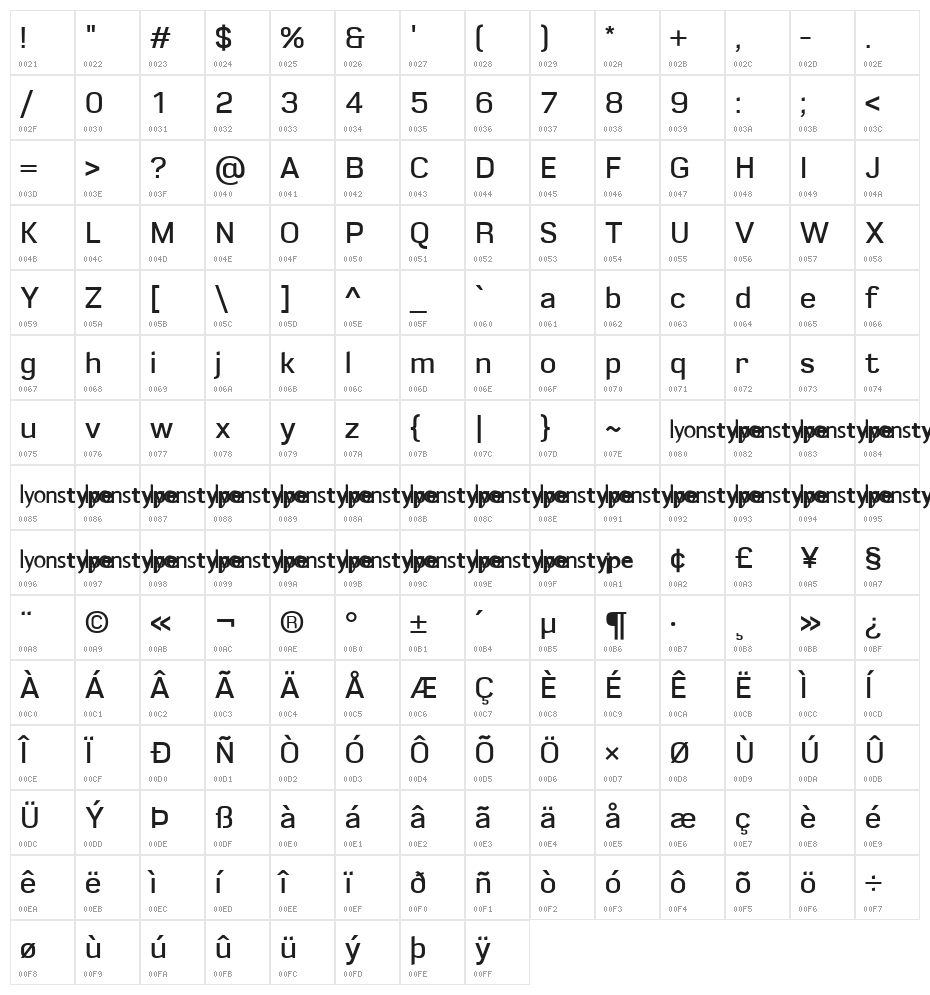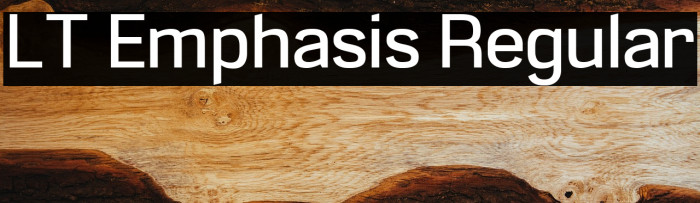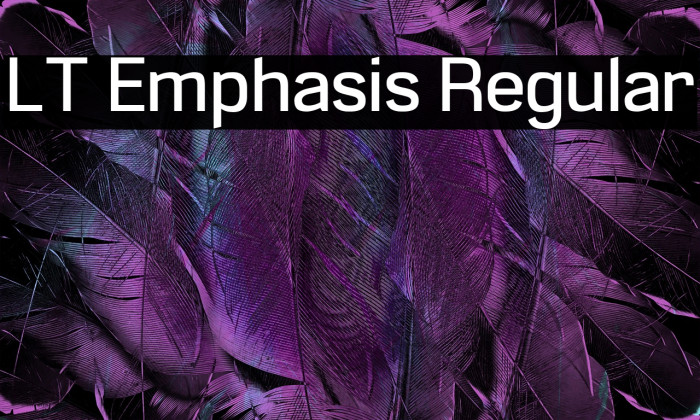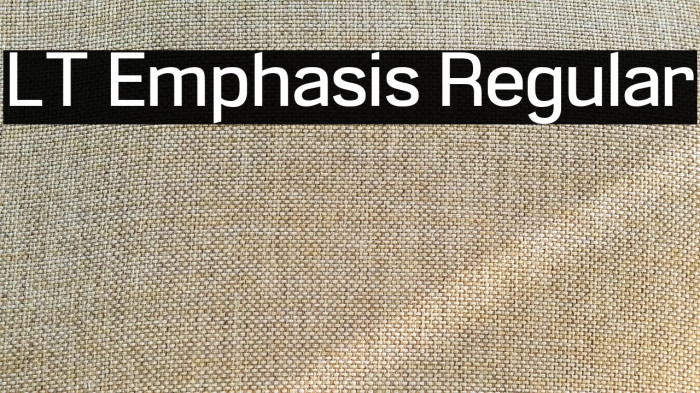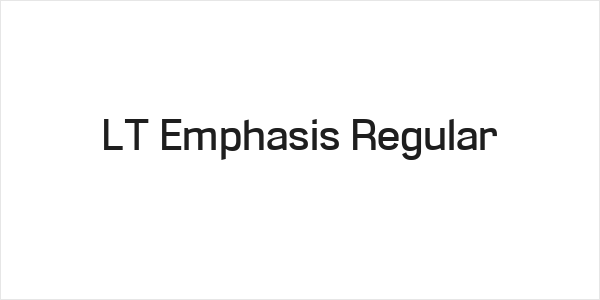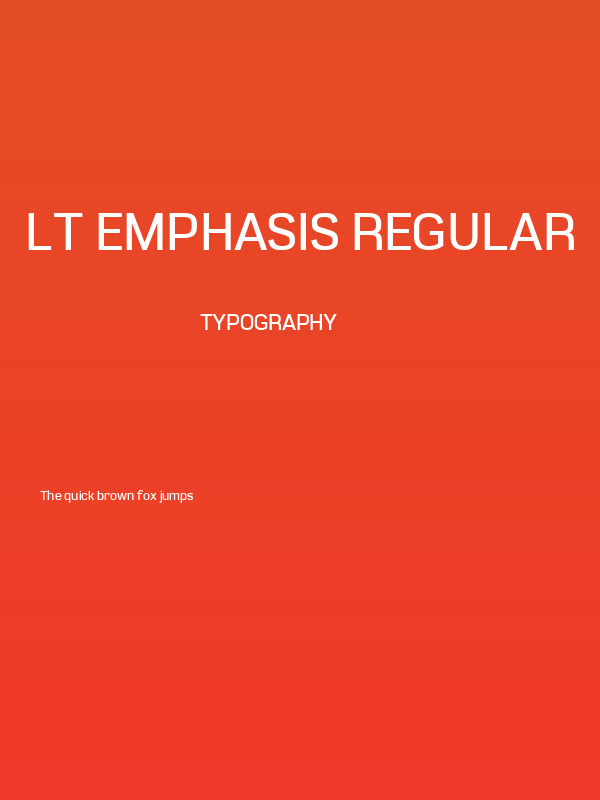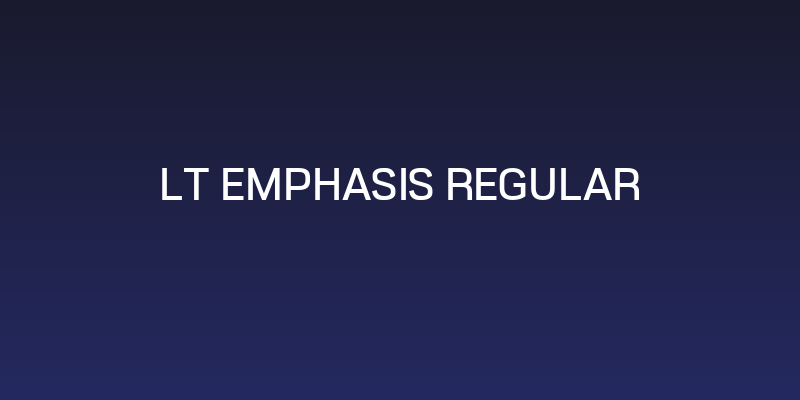
LT Emphasis Regular Font
LT Emphasis Regular Description
This typeface features a clean and modern sans-serif design, characterized by its straightforward and geometric letterforms. The uniform stroke width and minimalistic style contribute to its legibility and versatility, making it suitable for a wide range of applications. The uppercase and lowercase letters maintain a consistent height and spacing, providing a balanced and harmonious appearance. The numerals are clear and distinct, ensuring readability in various contexts. Special characters are well-integrated, enhancing the font's functionality for diverse uses.
| Use Case | Headlines, Body text, Logos |
| Proposed Projects | Ideal for branding, web design, corporate materials, and user interfaces due to its clarity and modern aesthetic. |